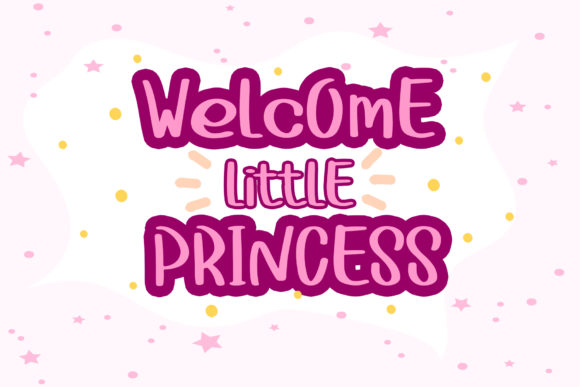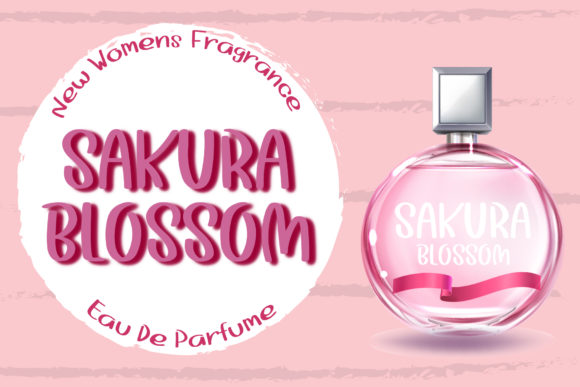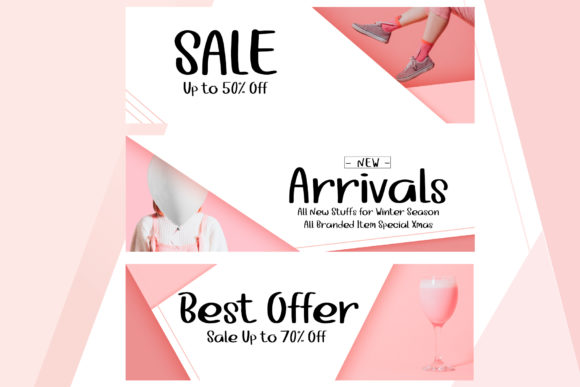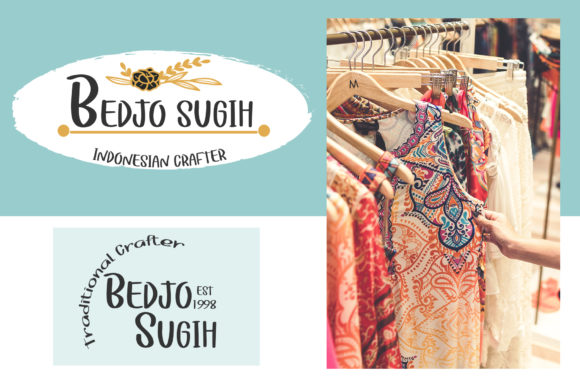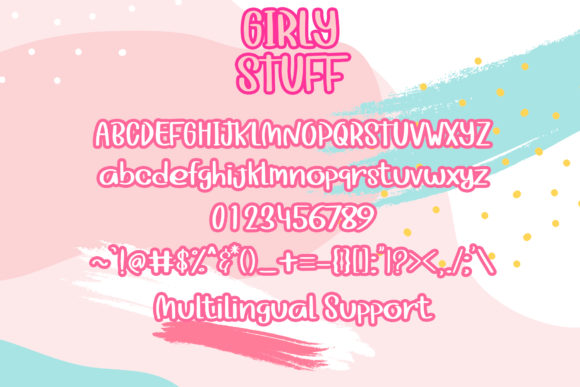
Girly Stuff Font: The Perfect Handwritten Font for Designers and Crafters
Are you a designer or crafter looking for a font that adds a touch of femininity and elegance to your projects? Look no further than the Girly Stuff font! This simple and natural handwritten font is perfect for a variety of uses, from crafting and digital designing to presentations and greeting cards making.
What is Girly Stuff Font?
Girly Stuff font is a beautiful, handwritten font that is designed to mimic the look of natural handwriting. It’s a simple and elegant font that is perfect for adding a personal touch to your projects. The font is highly legible and versatile, making it suitable for a wide range of applications.
Characteristics of Girly Stuff Font
So, what makes Girly Stuff font so special? Here are some of its key characteristics:
- Simple and Natural: Girly Stuff font is a simple and natural handwritten font that is designed to look like real handwriting.
- Highly Legible: The font is highly legible, making it perfect for use in a variety of applications, from body text to headings.
- Versatile: Girly Stuff font is highly versatile and can be used in a wide range of projects, from crafting and digital designing to presentations and greeting cards making.
- Feminine and Elegant: The font has a distinctly feminine and elegant feel, making it perfect for projects that require a touch of sophistication.
Uses of Girly Stuff Font
So, what can you use Girly Stuff font for? The possibilities are endless! Here are some ideas to get you started:
- Crafting: Girly Stuff font is perfect for crafting projects, such as scrapbooking, card making, and journaling.
- Digital Designing: The font is great for digital designing, including social media graphics, blog posts, and website headers.
- Presentations: Girly Stuff font can add a touch of elegance to your presentations, making them more engaging and effective.
- Greeting Cards Making: The font is perfect for creating beautiful and personalized greeting cards for special occasions.
Why Choose Girly Stuff Font?
So, why should you choose Girly Stuff font for your projects? Here are some reasons:
- Unique and Creative: Girly Stuff font is a unique and creative font that will add a personal touch to your projects.
- Easy to Read: The font is highly legible, making it easy to read and understand.
- High-Quality: Girly Stuff font is a high-quality font that is designed to produce crisp and clear results.
- Versatile: The font is highly versatile and can be used in a wide range of applications.
Tips for Using Girly Stuff Font
Here are some tips for using Girly Stuff font effectively:
- Use it for Headings and Titles: Girly Stuff font is perfect for headings and titles, where you want to make a statement.
- Pair it with Other Fonts: The font pairs well with other fonts, so feel free to experiment with different combinations.
- Use it for Body Text: Girly Stuff font is highly legible, making it suitable for use in body text.
- Experiment with Colors: The font looks great in a variety of colors, so don’t be afraid to experiment and find the perfect color for your project.
In conclusion, Girly Stuff font is a beautiful and versatile handwritten font that is perfect for designers and crafters. Its simple and natural design makes it highly legible and suitable for a wide range of applications. Whether you’re using it for crafting, digital designing, presentations, or greeting cards making, Girly Stuff font is sure to add a touch of elegance and sophistication to your projects.